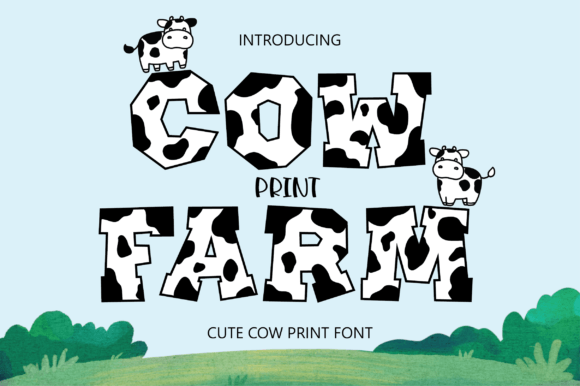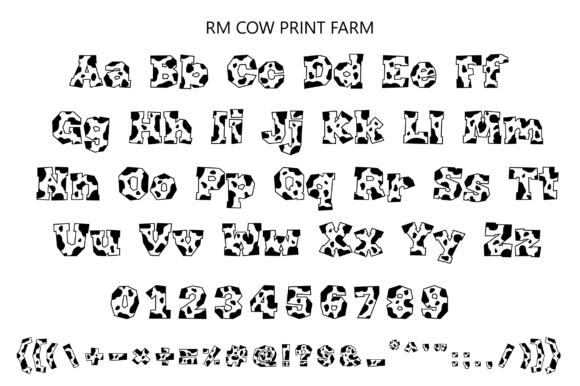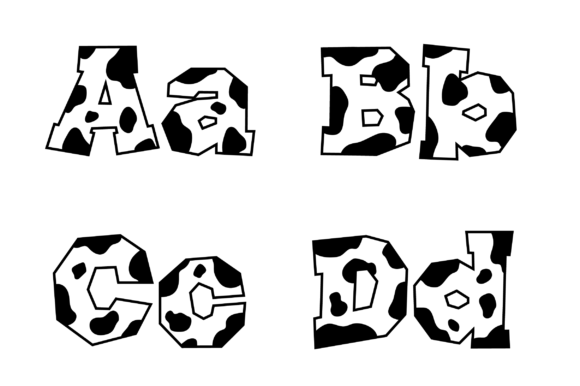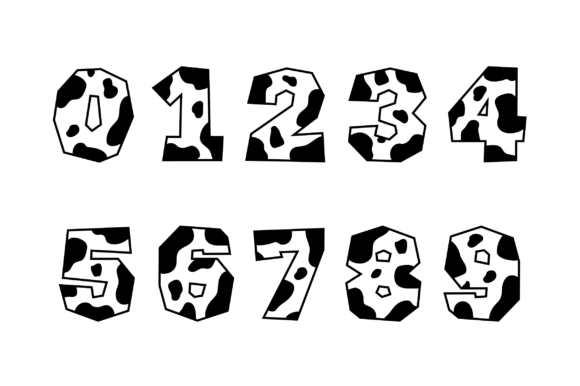
Cow Print Farm Font
About the Cow Print Farm Font
Presenting Cow Print Farm Font, a unique and stylish typeface that will make your work stand out. Cow print farm is cute display font in cow skin effect. It’s look fun and young and friendly to use to any project.
This font excels in display applications such as logos, headlines, short taglines, and eye-catching posters where its playful nature can shine. It’s ideal for branding projects targeting a young, fun, and approachable audience, particularly in children’s products, food packaging, or agricultural businesses with a lighthearted image. Avoid using it for body text or long-form content; its quirky nature makes it unsuitable for readability in extended passages.
Cow Print Farm Font pairs well with clean sans-serif fonts like Helvetica or Open Sans for a balanced contrast, allowing the playful display font to stand out. Alternatively, a classic serif like Garamond or a more modern geometric sans-serif could provide a sophisticated counterpoint, grounding the overall design. Avoid pairing it with other highly decorative or script fonts, as this could create visual clutter.
The overall personality is undeniably friendly and youthful, conveying a sense of fun and approachability. Its informal nature makes it perfect for conveying a lighthearted, down-to-earth brand message.
Cow Print Farm Font Usage Examples
Cow Print Farm Font Example